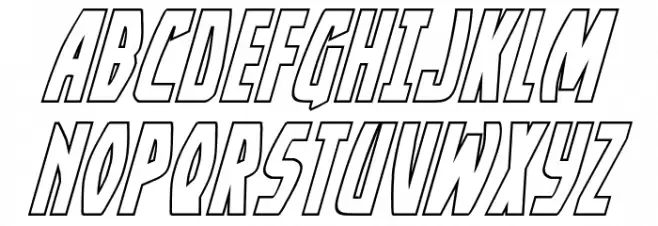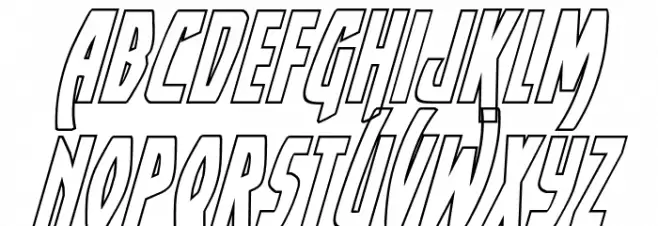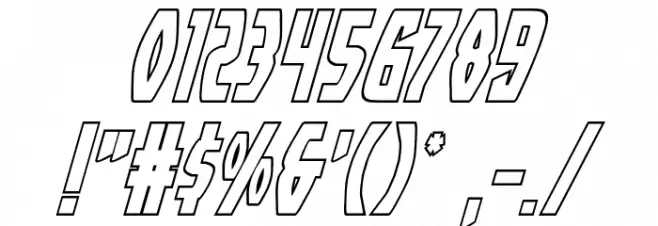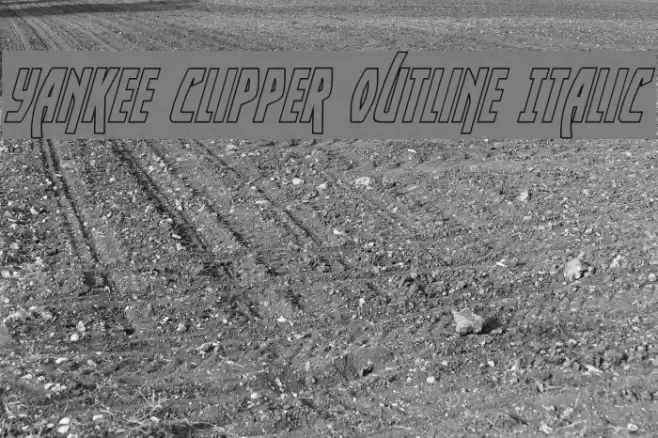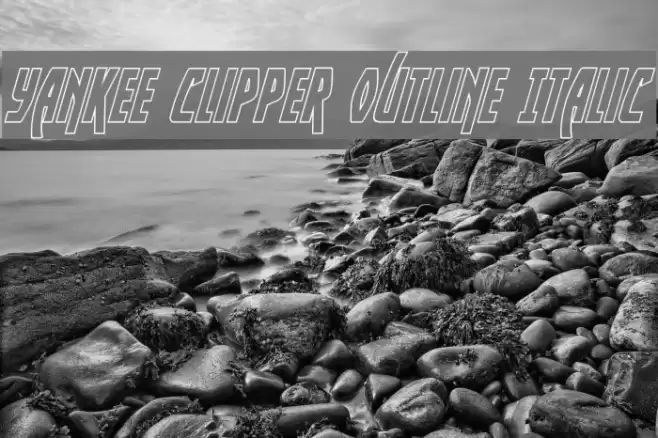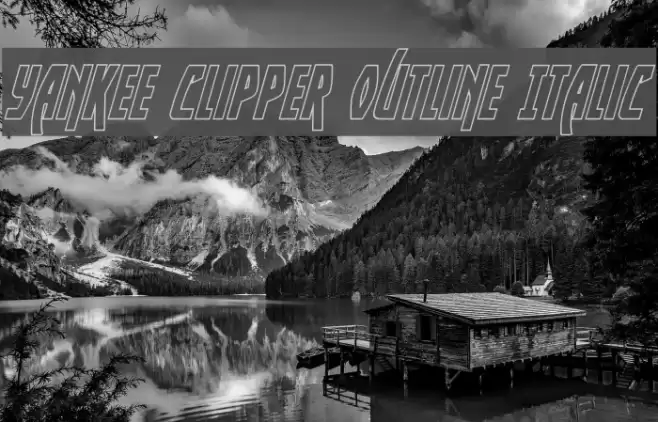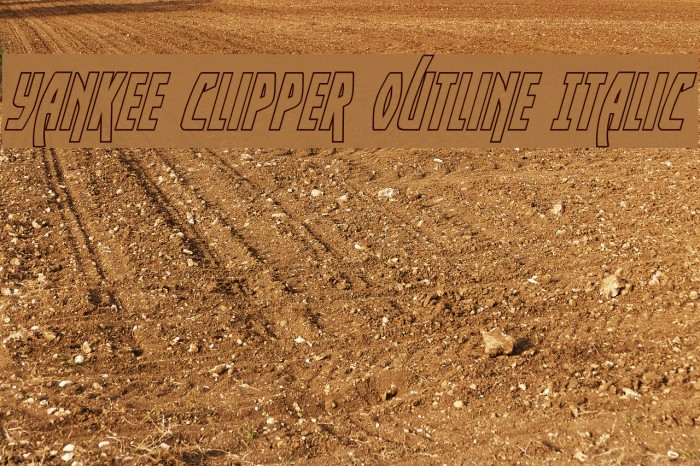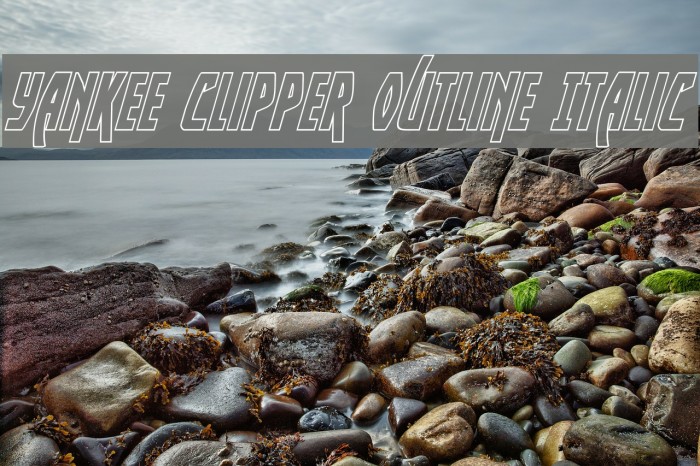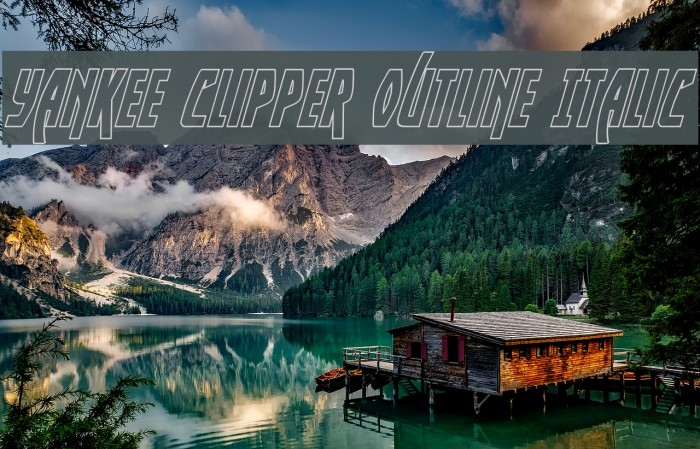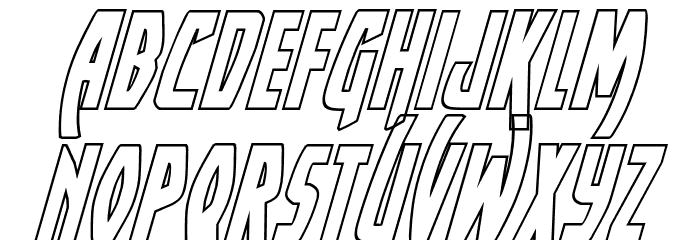
Yankee Clipper Outline Italic
This font features a bold, italicized outline style that gives it a dynamic and energetic appearance. The characters are slanted, adding a sense of motion and speed, which is further emphasized by the sharp angles and clean lines. The outline design creates a hollow effect, making the letters appear light and airy despite their boldness. This font is particularly eye-catching and suitable for designs that require a strong visual impact. The uppercase and lowercase letters maintain consistency in style, ensuring a cohesive look across different text elements. The numerals and special characters are designed with the same attention to detail, providing a complete and versatile character set.
A bold, italicized outline font with a dynamic and energetic style.
- Proposed Projects: Ideal for sports branding, dynamic posters, and modern advertising campaigns.